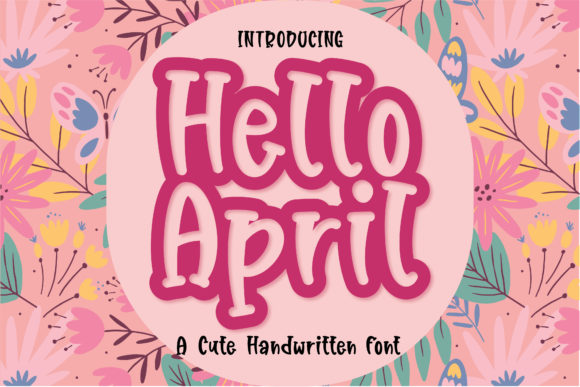
Introducing Hello April Font, the ultimate serif font for t-shirt designs that will leave a lasting impression. Prepare to be captivated by its beautifully crafted curves, soft edges, and timeless elegance. Hello April Font is designed to spark emotions and add a personal touch to your creative projects.
With its natural and organic flow, Hello April Font exudes a calming and inviting atmosphere. It effortlessly blends tradition and modernity, making it an excellent choice for projects seeking a classic look with a contemporary twist.
Hello April Font's versatility knows no bounds. Its diverse range of styles - from playful to sophisticated - makes it a perfect fit for a multitude of designs. Turn your t-shirts into works of art, creating eye-catching designs that will set you apart from the crowd.
Step into the world of Hello April Font and unlock a realm of endless possibilities. It's the perfect companion for wedding invitations, thank you cards, quotes, greeting cards, logos, and business cards. With Hello April Font by your side, your designs will be the talk of the town.
Let Hello April Font be the voice of your creativity. Its inviting charm and timeless elegance will leave an unforgettable impact on those who encounter your designs. Experience the magic of Hello April Font today and let your imagination soar.